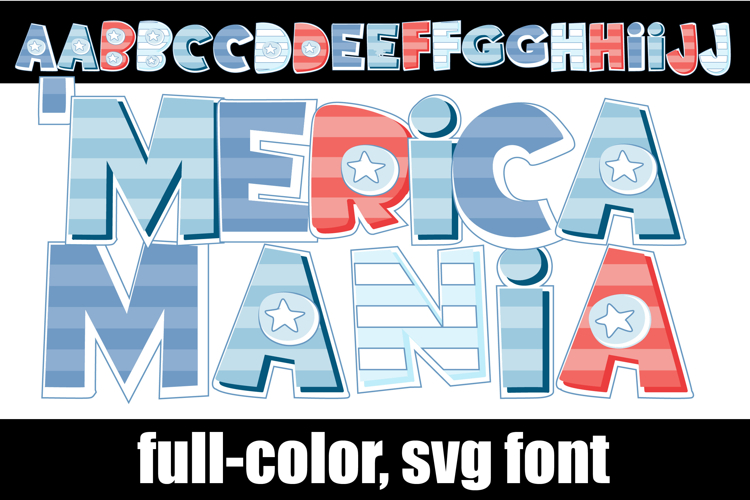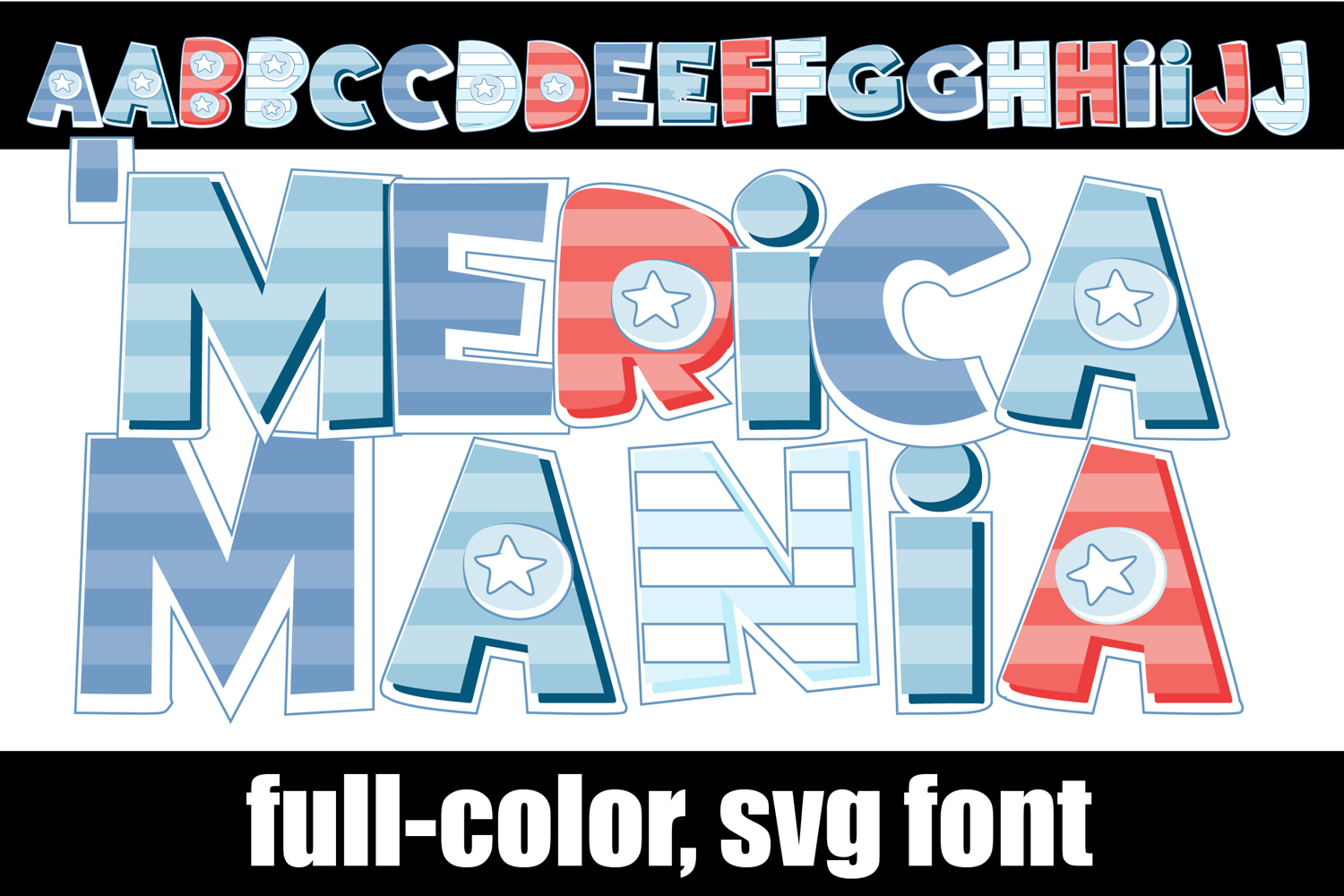
'Merica-mania Too Color Font
This full-color, whimsical font is in a pastel patriotic color palette with stripes and stars. There is an alt case of additional colors of each letter that you can access through your system's character map.